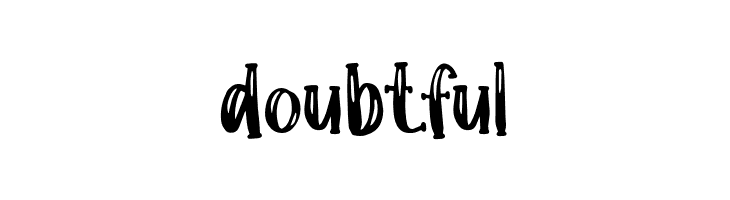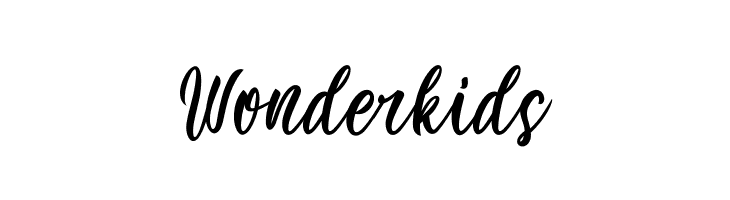
A bold, expressive script font with flowing cursive letterforms.
A modern, rounded typeface with an extra-light weight and uniform stroke width.
A delicate and elegant handwritten font with flowing, cursive letterforms.
A playful font with characters enclosed in egg shapes, offering a whimsical and friendly style.
A playful, handwritten font with a whimsical and friendly style.
A modern, italicized font with expanded characters and medium contrast.
A sleek, modern font with thin, clean lines and balanced spacing.
A bold, geometric font with thick strokes and angular edges.
A modern, cut-out style font with bold, geometric characters.
A bold, modern sans-serif font with geometric structure and excellent readability.